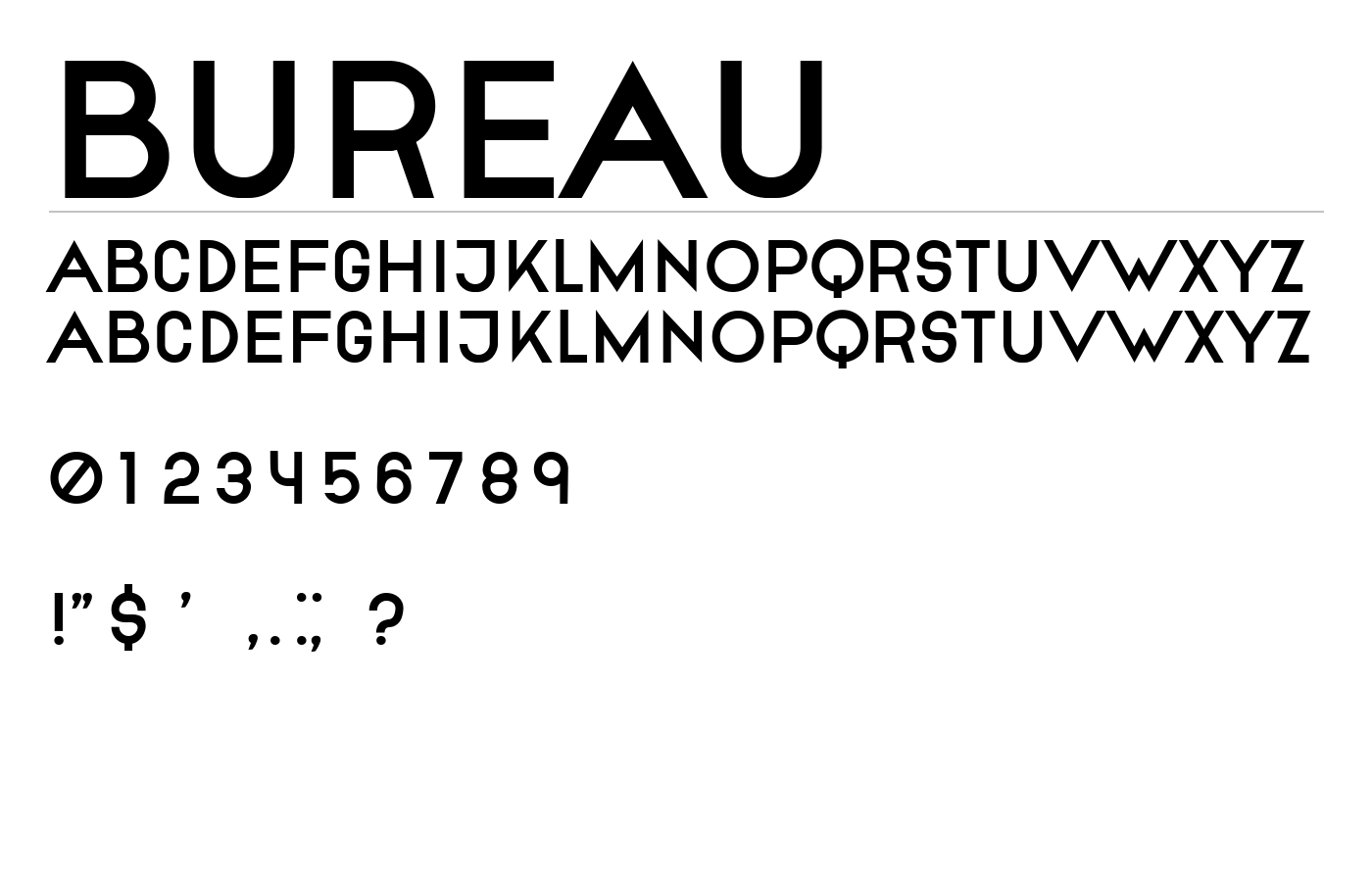
Bureau is a clean, modern sans serif font characterized by its bold weight, geometric shapes, and consistent stroke width, creating a strong and straightforward appearance. Its uppercase letterforms feature unique, sharp details like the angled crossbar on the 'A' and the distinctive tail on the 'Q,' making it ideal for striking headlines, branding, and editorial use where clarity and impact are essential. This font conveys professionalism and modernity, fitting well with contemporary design projects seeking a confident and polished look.
Bureau Font
About Bureau Font
| Font family | Bureau Font |